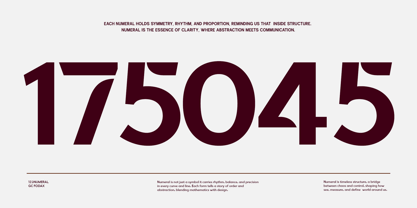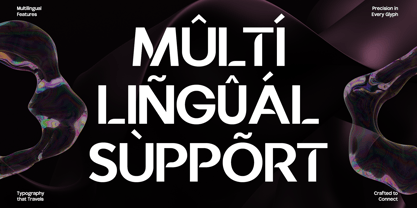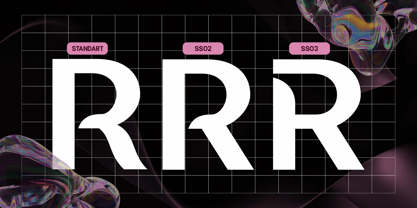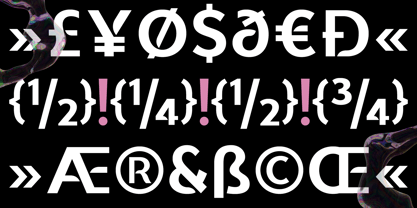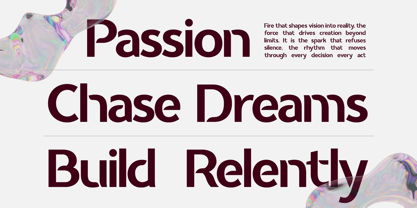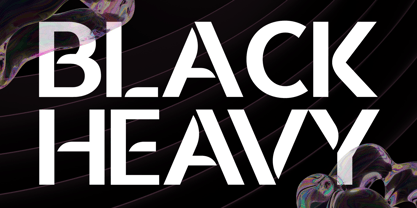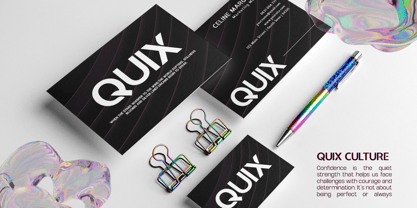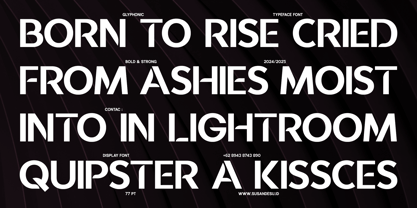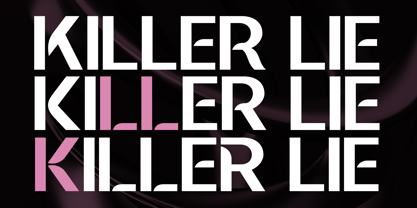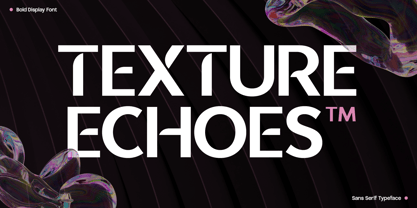
GC Fodax
The GC Fodax Font Family was designed by Muhammad Hafiizh Solana and published by Onyx Studio. GC Fodax contains 2 styles and family package options. More about this family
GC Fodax is a bold sans serif typeface designed to deliver clarity, strength, and modern impact. With clean geometric forms and assertive strokes, it brings a confident voice to both digital and print applications. Crafted to embody simplicity without sacrificing personality, GC Fodax is ideal for branding, editorial layouts, tech-forward designs, and striking visual identities. Its balanced proportions and refined detailing make it versatile yet distinctive—whether you're creating sleek interfaces, commanding headlines, or minimalist posters, GC Fodax adds power, precision, and elegance to your typography. Features: Uppercase & Lowercase Numbers & Punctuation Modern Geometric Construction Bring bold clarity and modern elegance to your next project with GC Fodax.